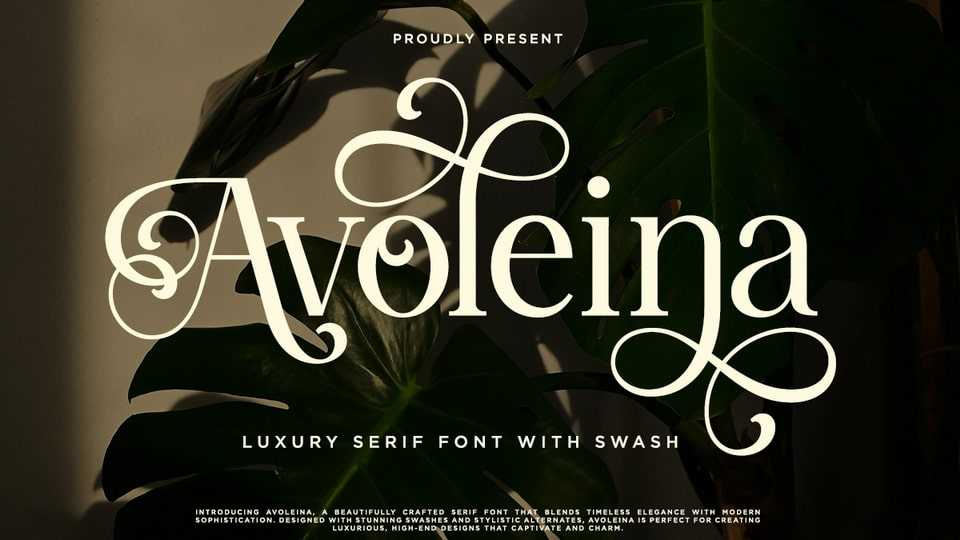
Download Avoleina font, a stunning luxury serif typeface crafted with exquisite elegance and timeless sophistication, designed for those who crave high-end aesthetics.